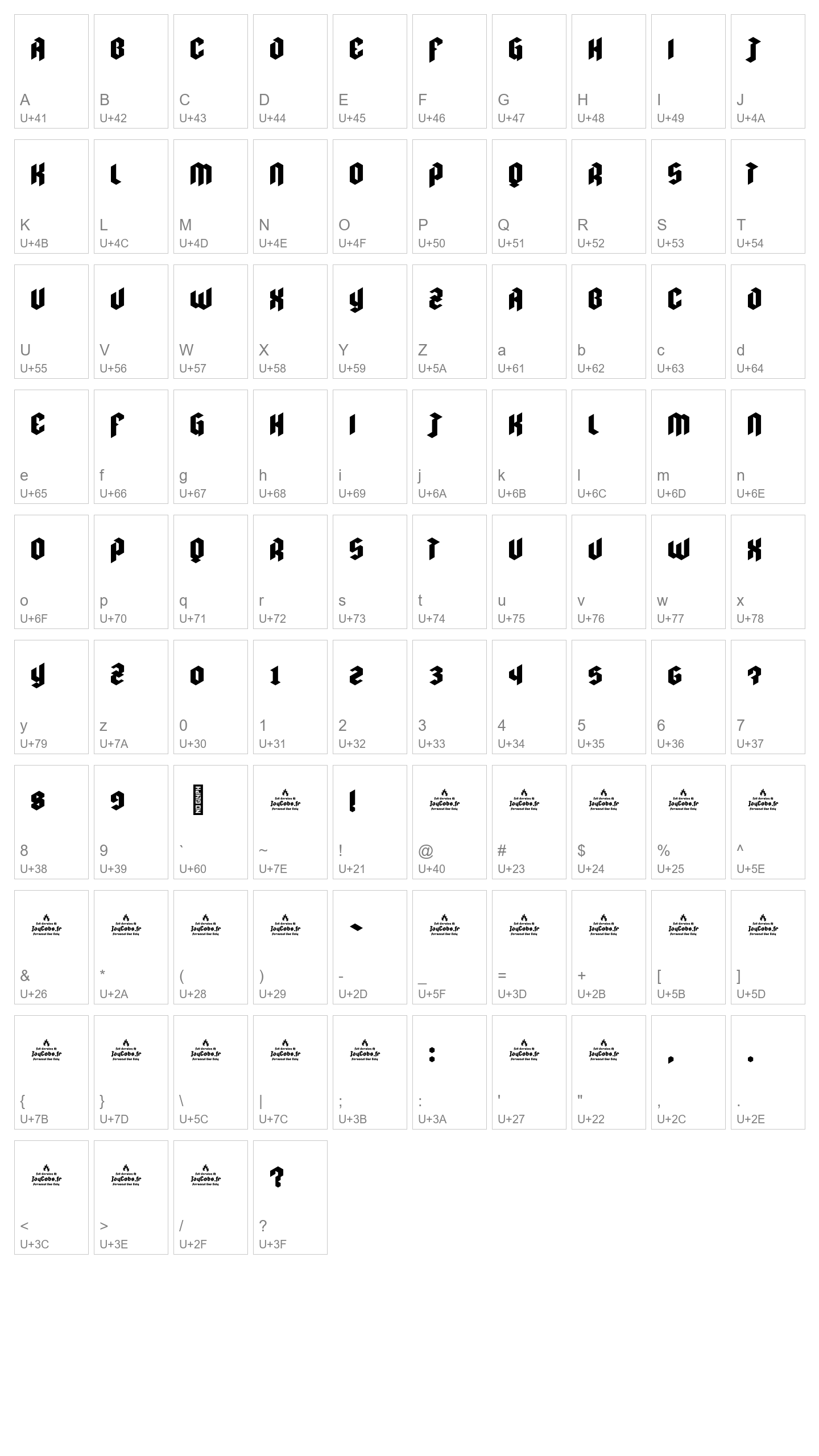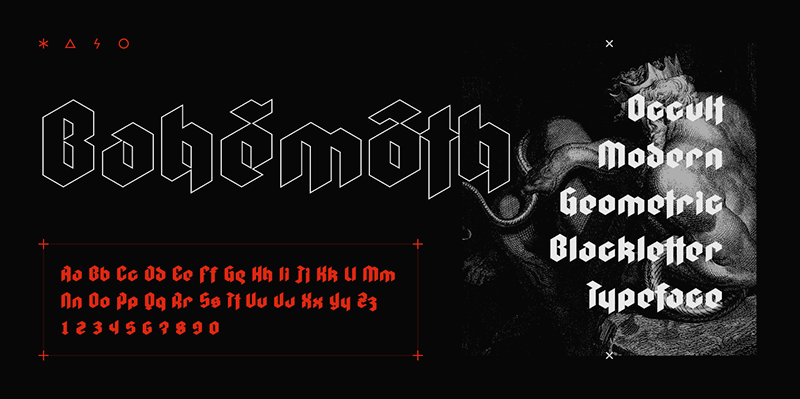
Bahemoth
Behemoth font was designed and created by JAYCOBS
In the biblical book of Job, Bəhēmôth a primeval chaos-monster created by God at the beginning of creation. In more common meaning, it designates an extremely large or powerful beast or entity.
Bəhēmôth is my latest attempt to make a geometric blackletter font with bold attribute. Inspired by germanic gothic typography and my previous projet DreiFraktur. The font is made of 256 glyphs in his full version. You can acquire for free (for personal use) a demo version constituted of uppercase characters.